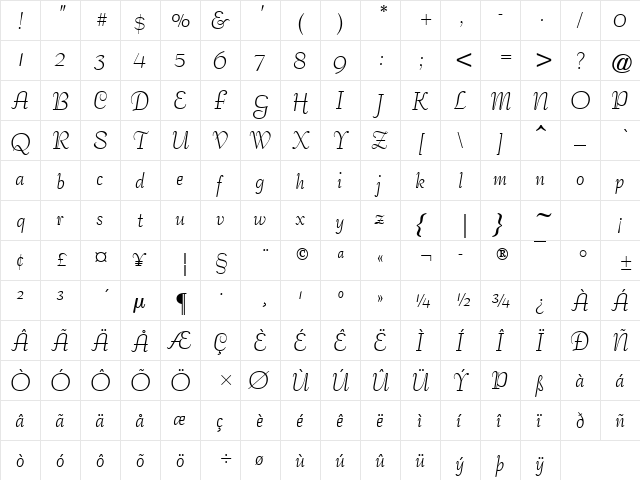
Carmine Tango ATT Regular Font Preview
Carmine Tango ATT Regular
Design Context for Carmine Tango ATT Typeface
Carmine Tango ATT takes a measured approach to typography — its balanced proportions and neutral character make it a reliable workhorse for both digital and print work.
Pro Tip: Use Carmine Tango ATT in both headline and body roles to test its range before committing to a single application.